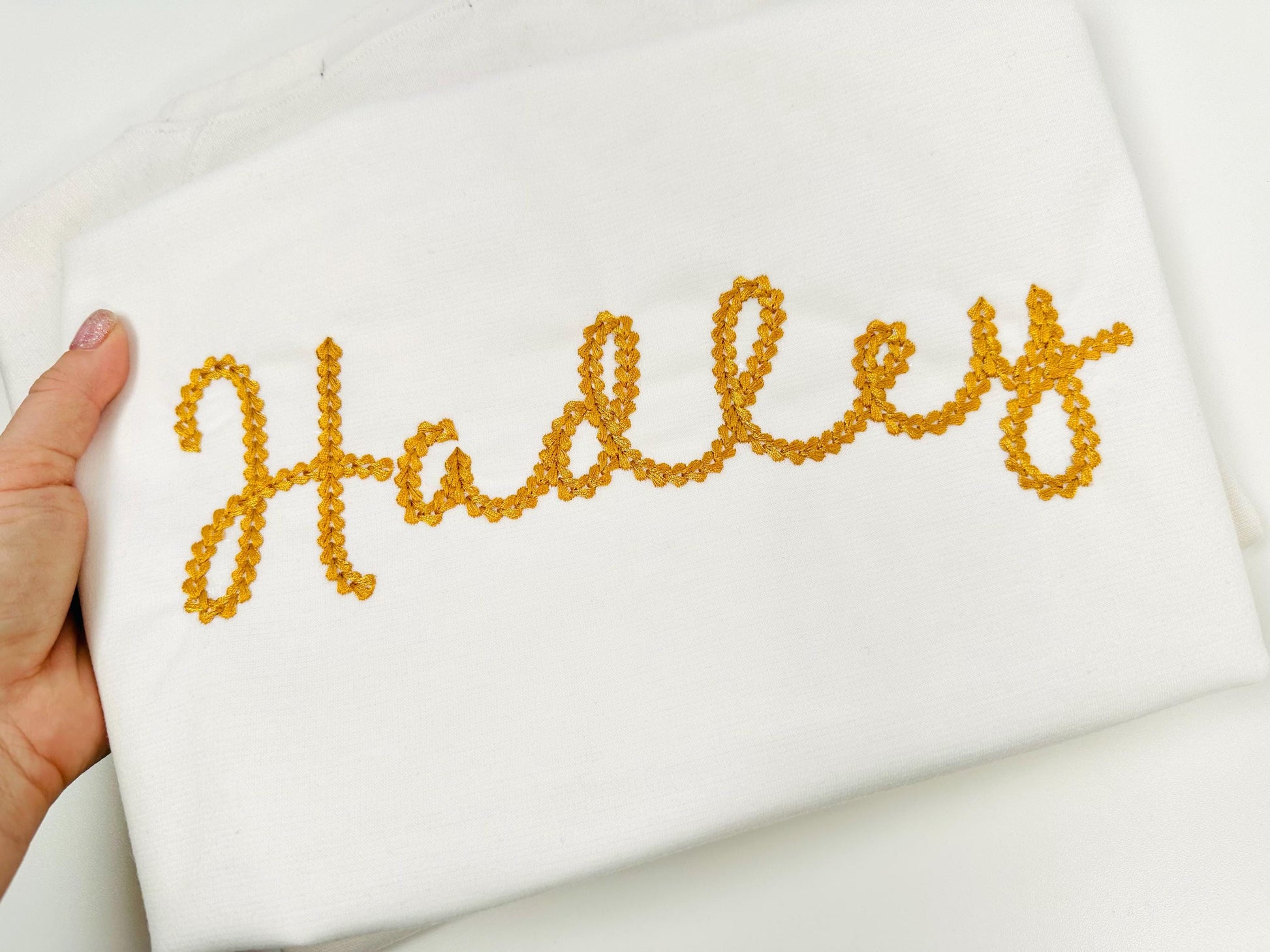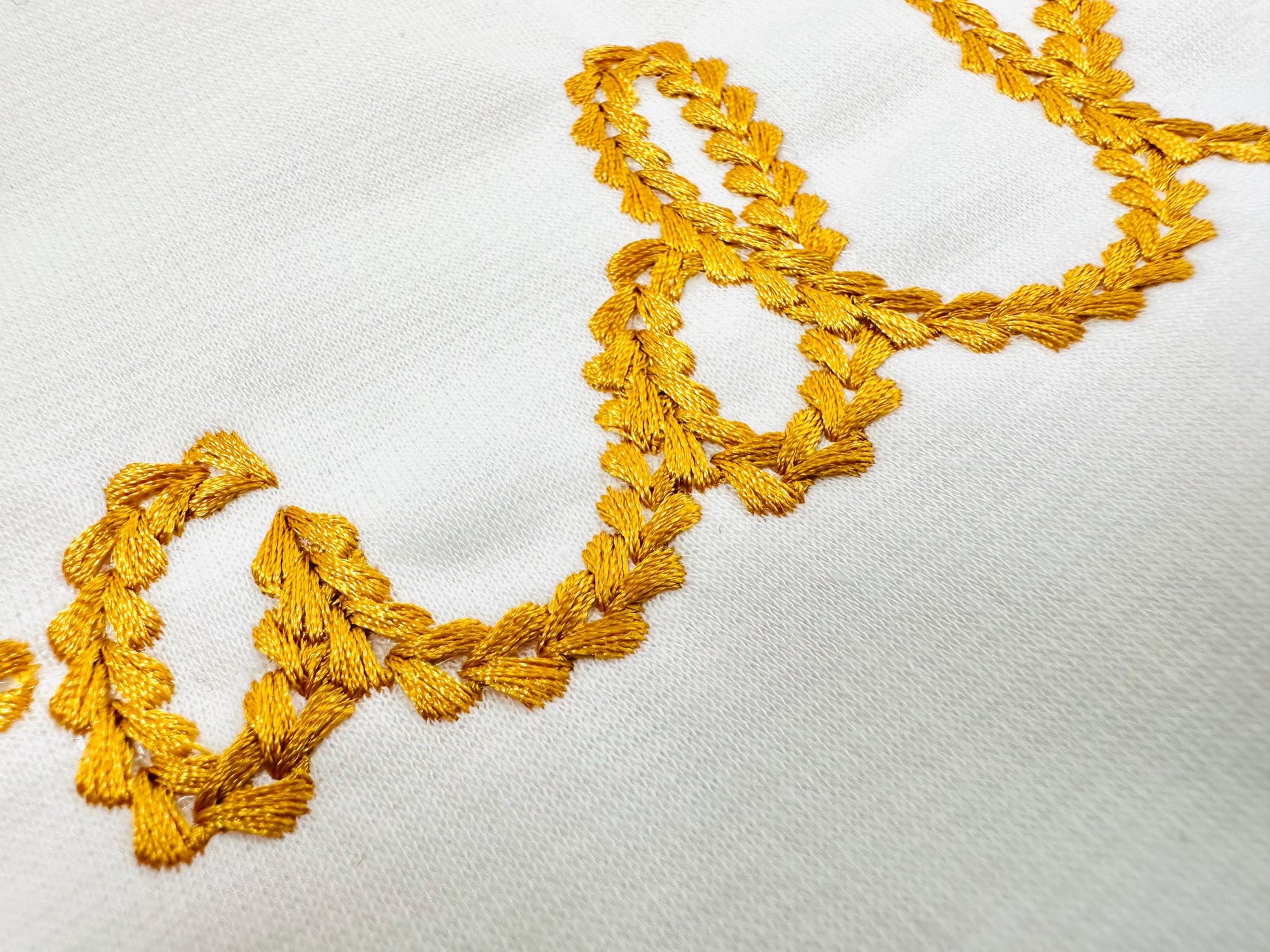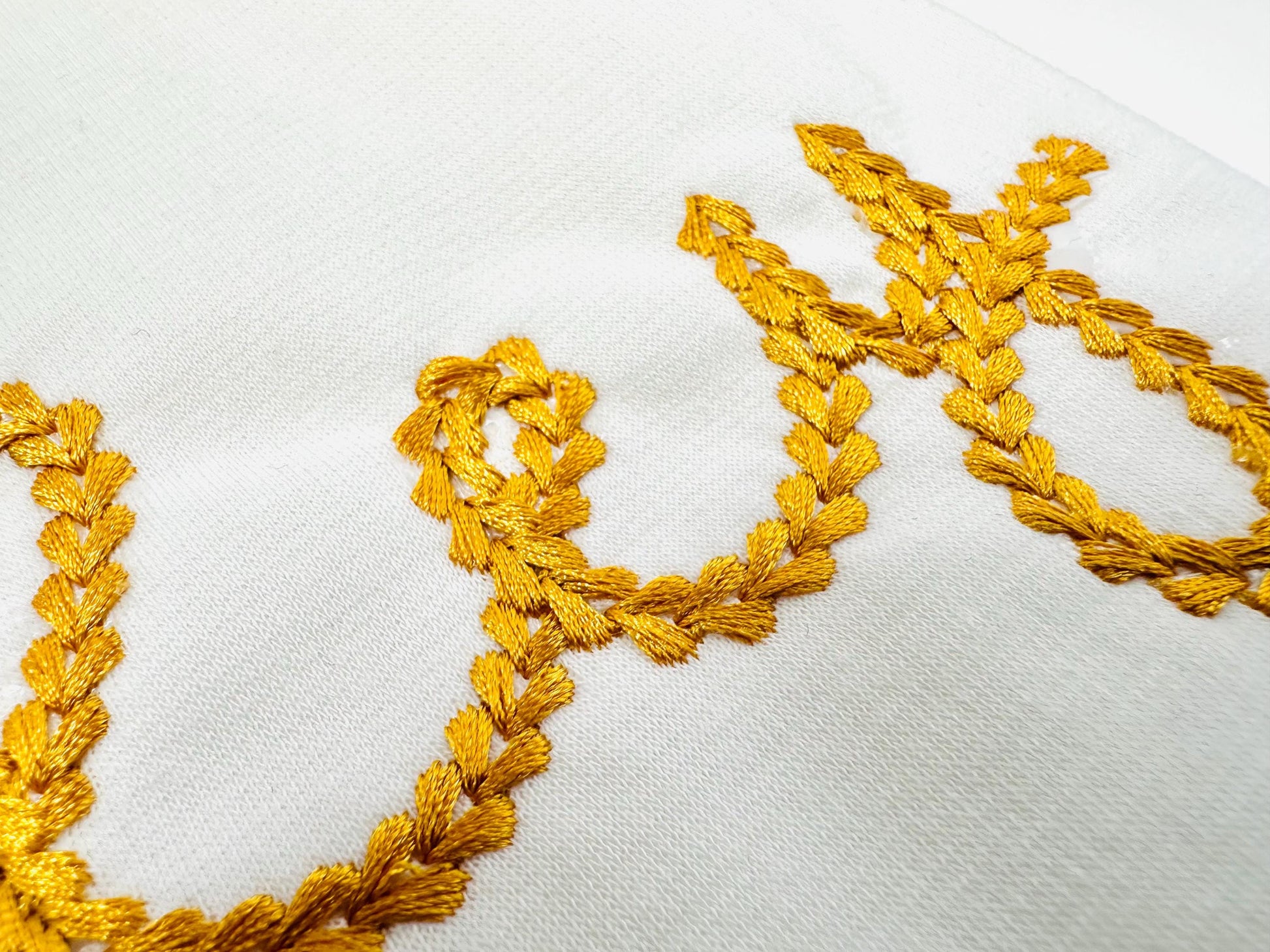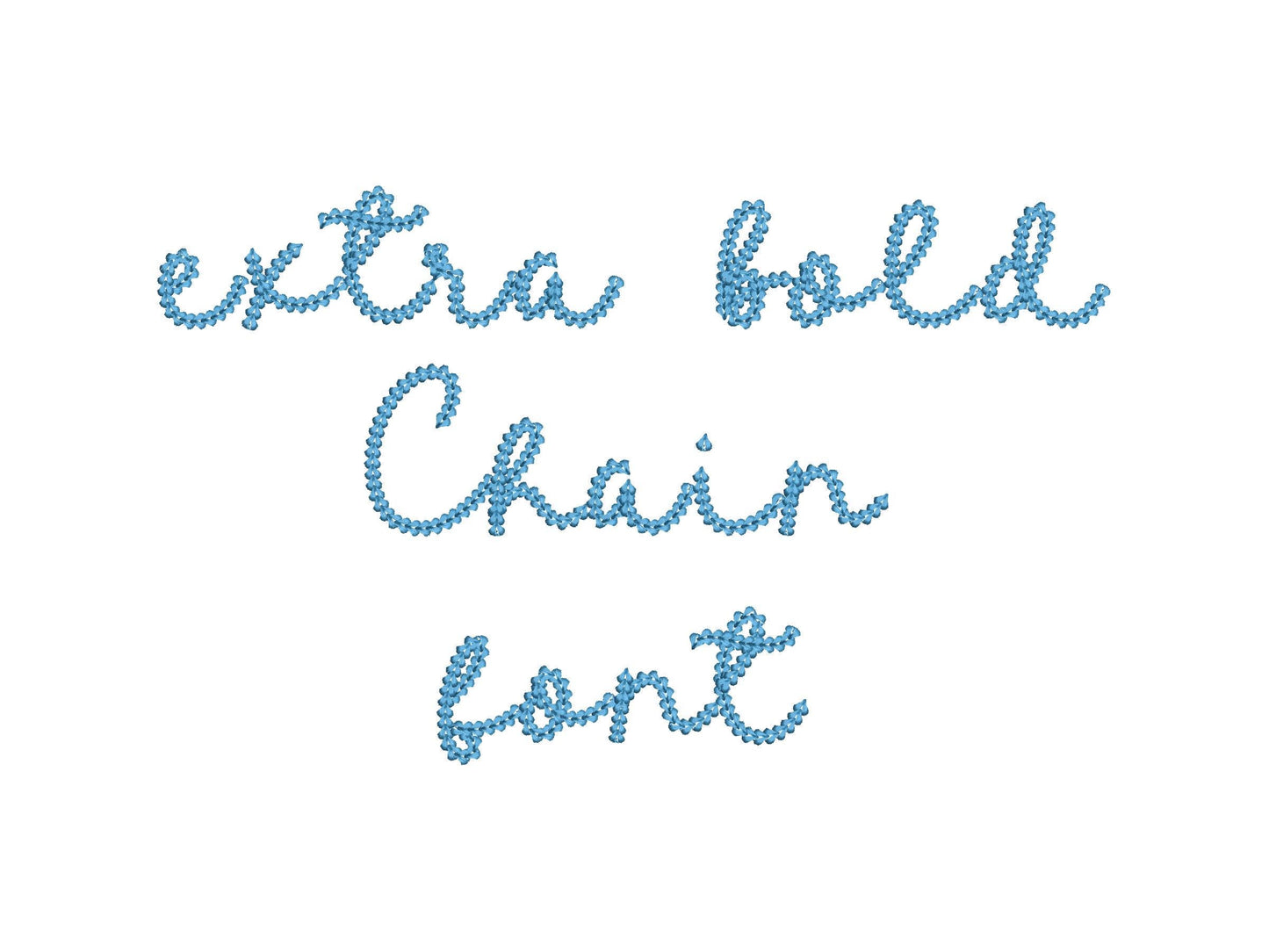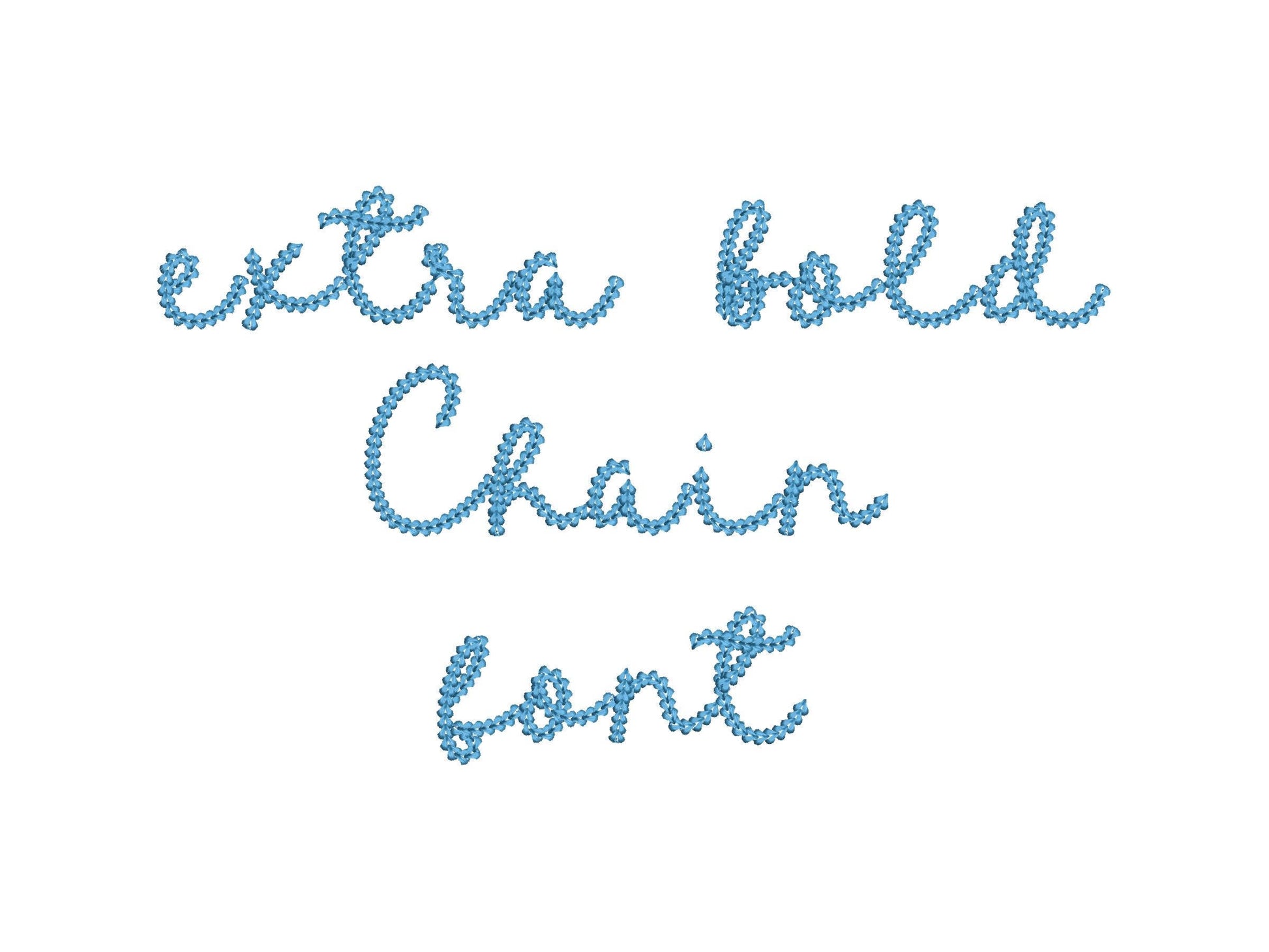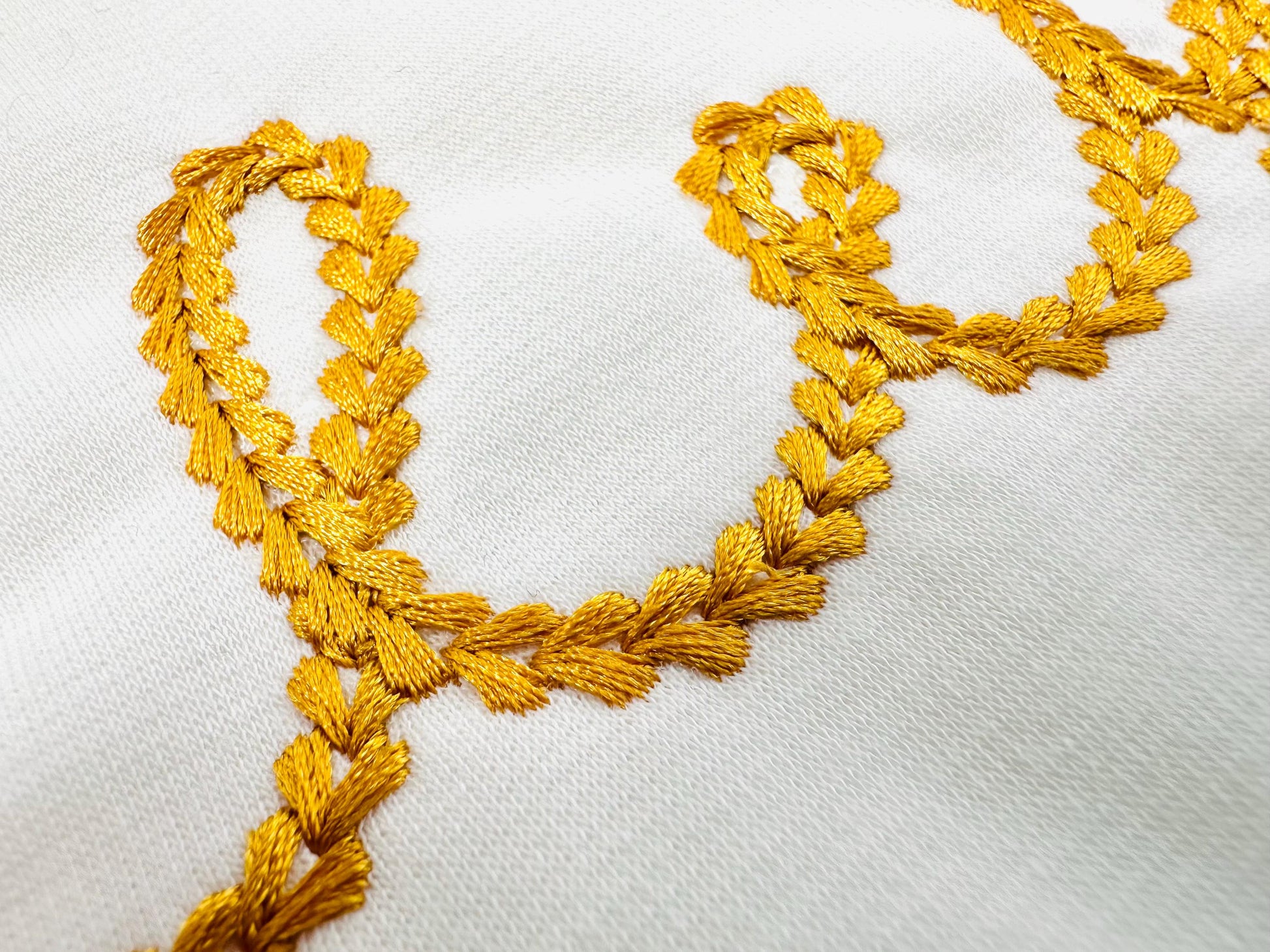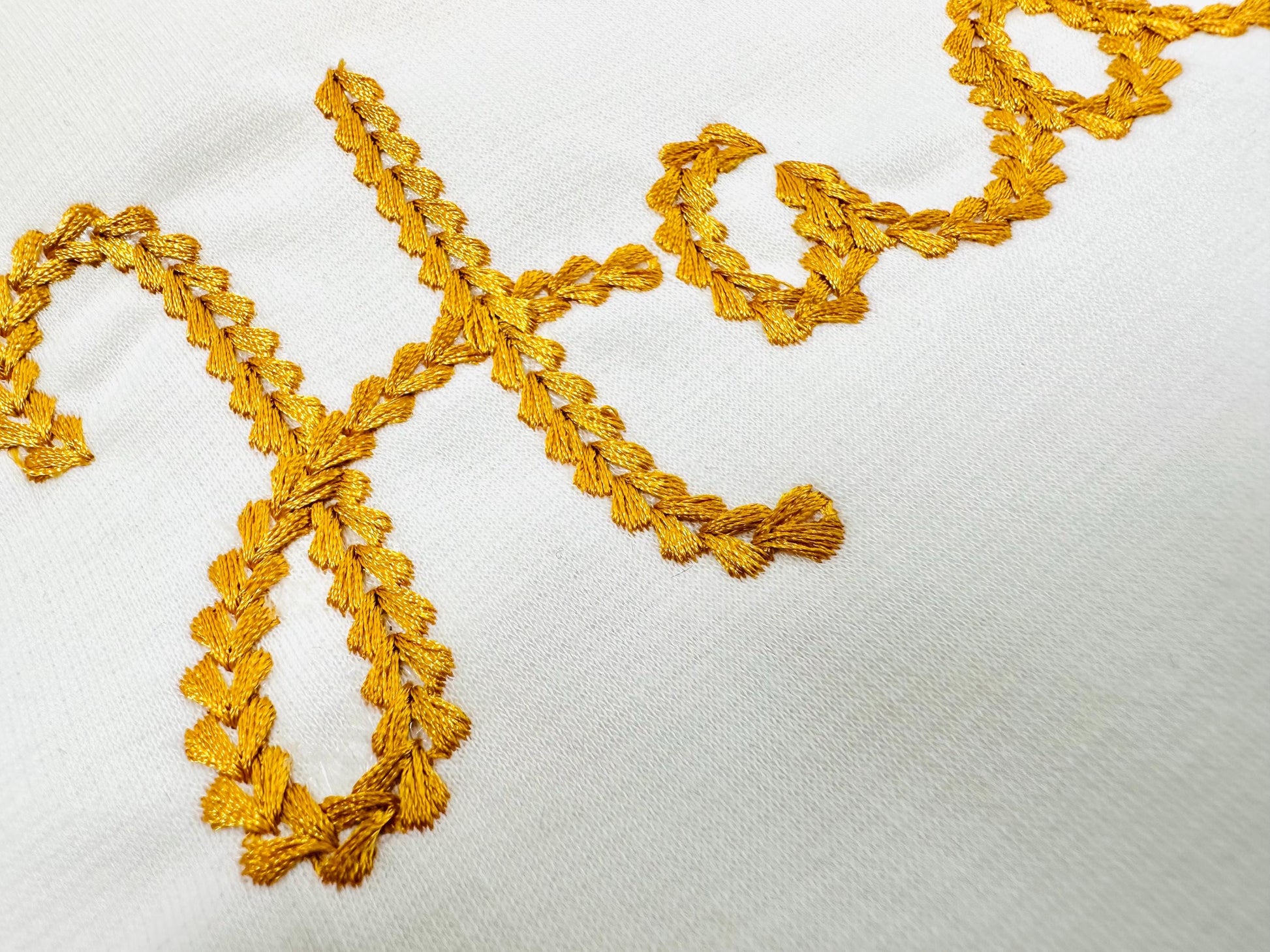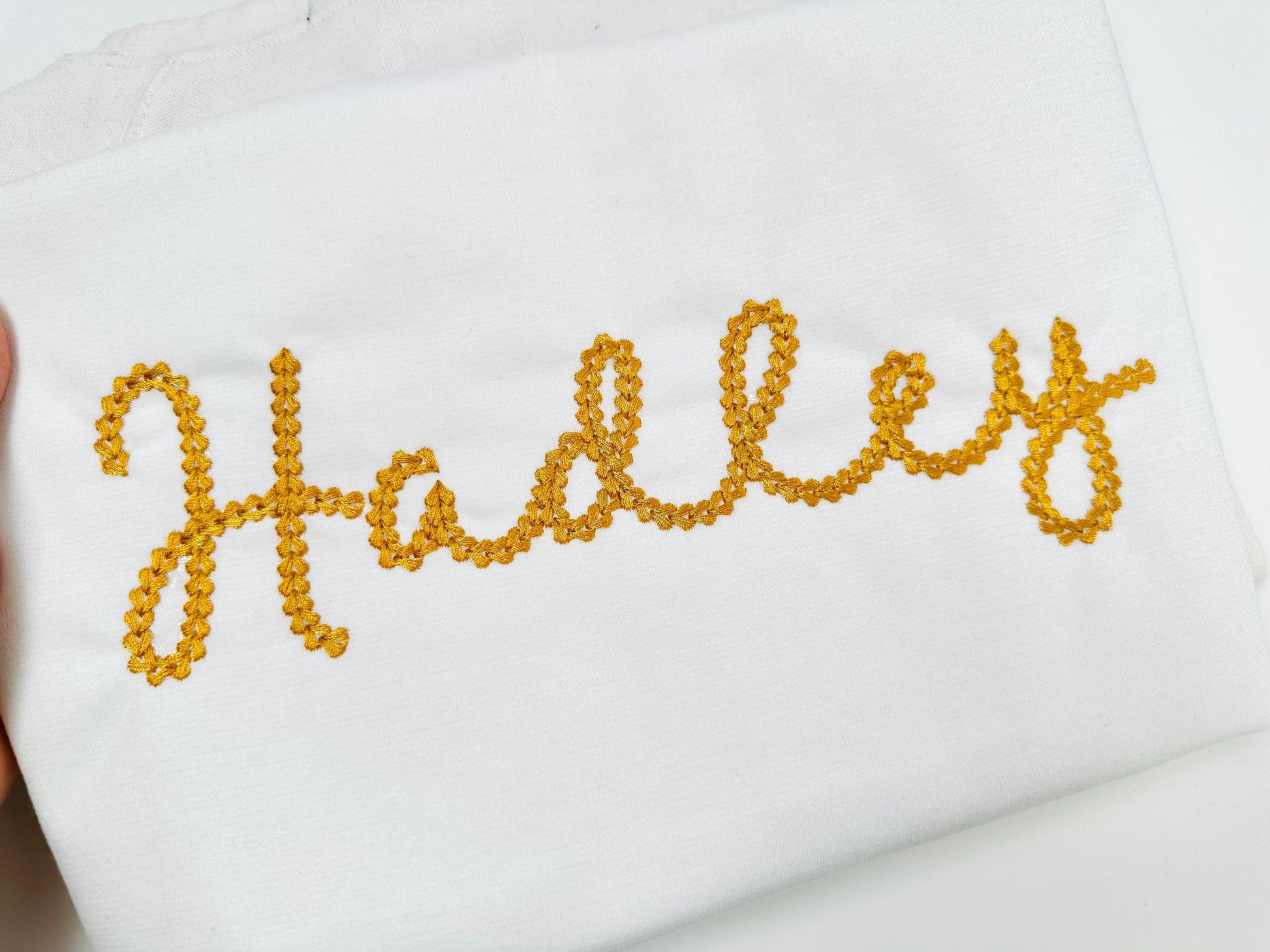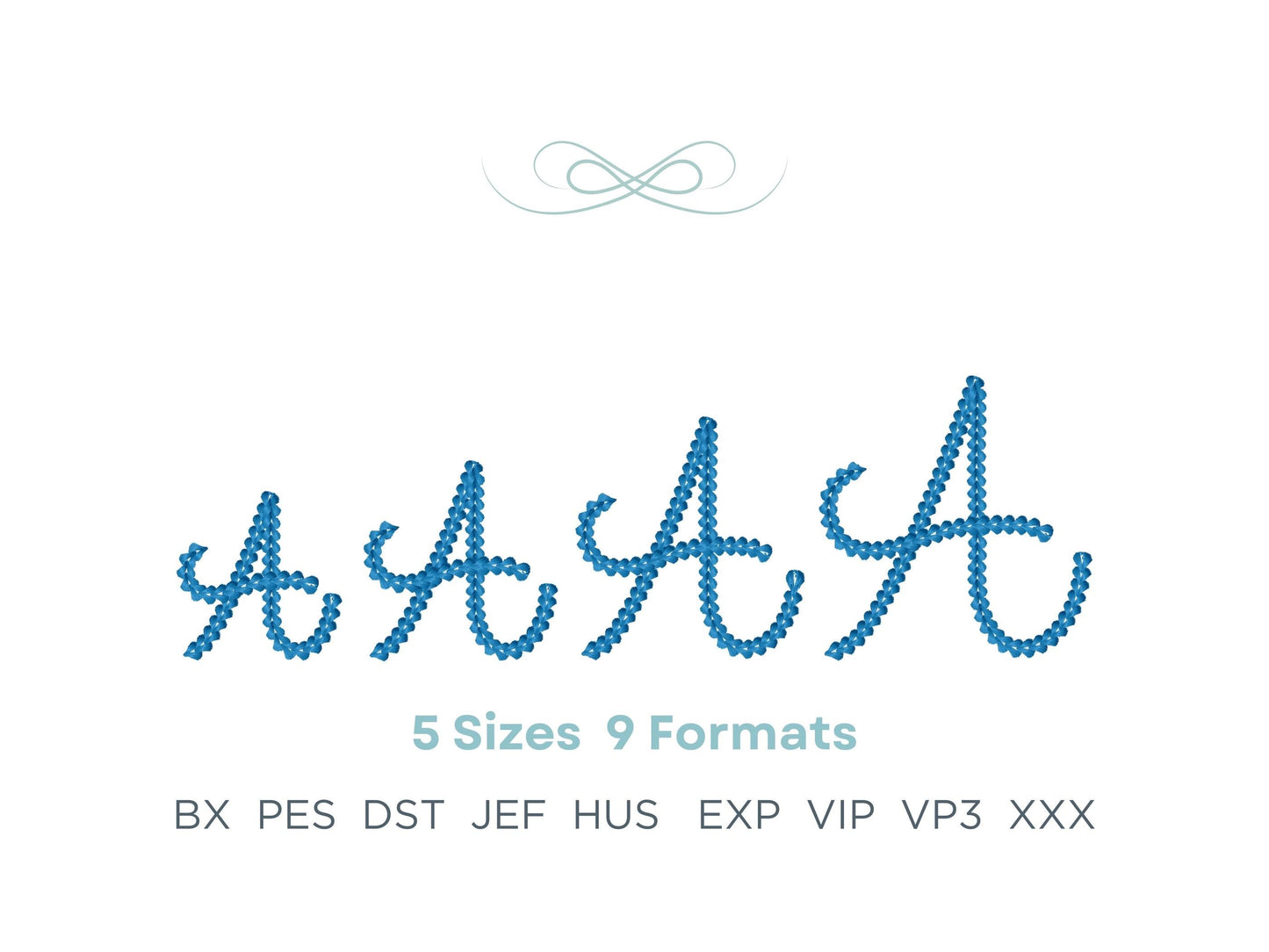
Or click to open the linkDarlene, an extra bold handwritten script in chain stitch with a knit sweater look. Cozy for sweatshirts, names, monograms and sayings.
Uppercase and lowercase letters, numbers 0 to 9 and punctuation, in four sizes: 2.6, 3.2, 3.8 and 4.4 inches.